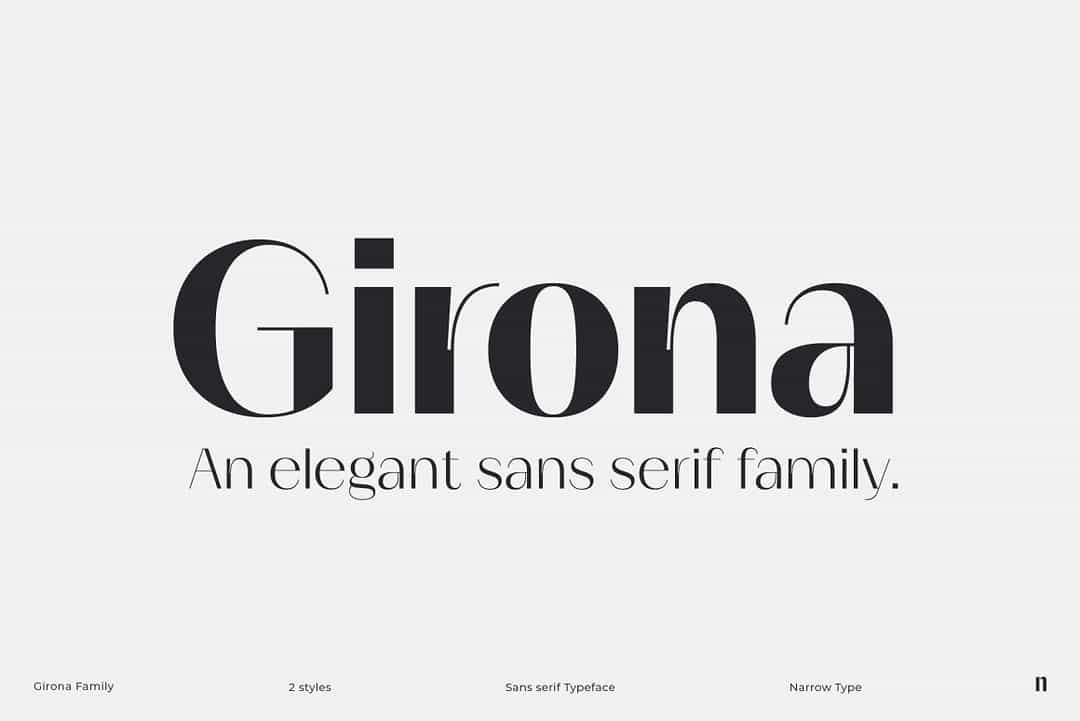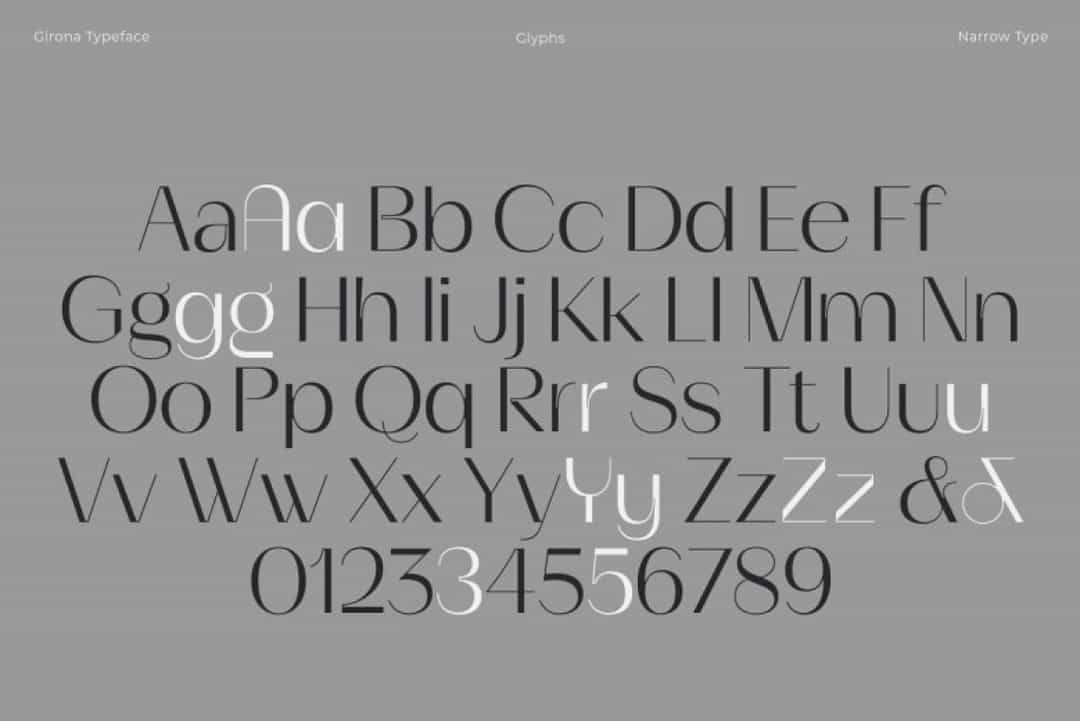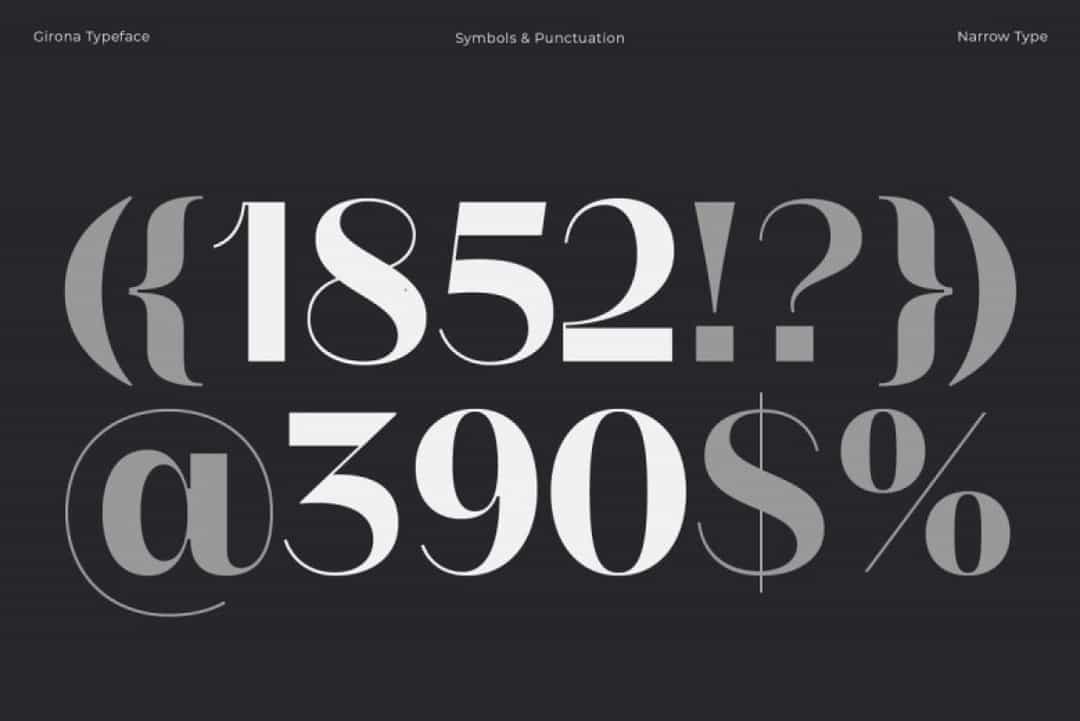
Girona is an elegant and striking sans serif font with large inktraps and numerous fun elements creating a contemporary font with its own distinct appearance. Offering traditional and discretionary ligatures as well as various stylistic sets to help alter its appearance from delicate to more imposing; ideal for editorial design, branding and logo design as well as larger sizes such as headlines.